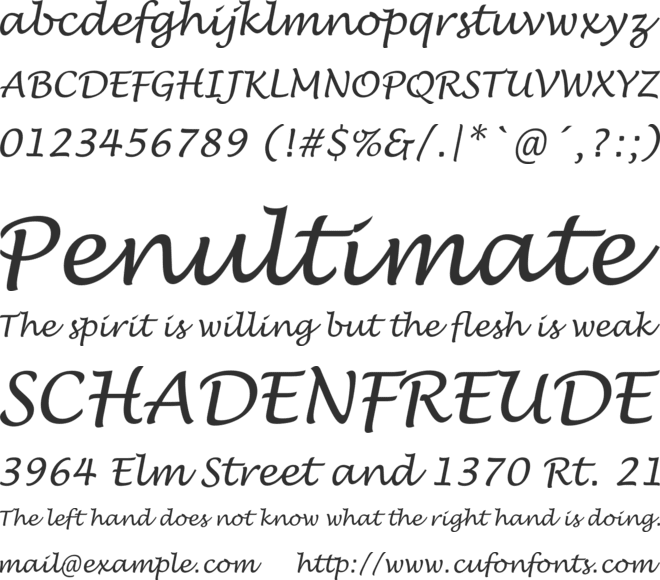
Hasty tasty created by david kerkhoff is a typical font in handwriting style. Guidelines use enough line spacing so that ascenders and descenders do not collide.
The handwritten font has slightly skewed letters that lean both right and left. Lucida handwriting was originally released in one weight. Your text will be pasted into the same font you copied from the generator, only when the website you are using supports that unicode.
Lucida handwriting is a casual, connected script designed for smooth and fun reading on screens and in print. It has both serif and sans serif characters. Lucida handwriting is a typeface designed by kris holmes and charles bigelow, and is available for desktop, web, digitalads, app, epub, and server.